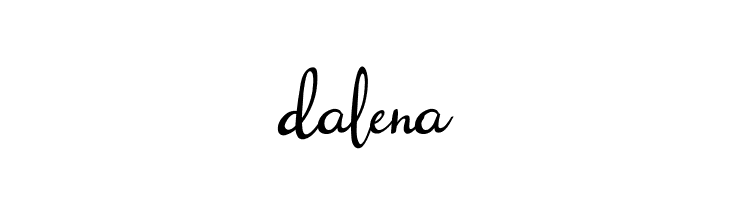
A bold, glitch-inspired font with a dynamic, distorted appearance.
A bold, flowing script font with a lively, tropical vibe.
A bold, hand-drawn font with a dynamic, graffiti-inspired style.
A bold, hand-drawn font with a playful and energetic style.
A playful and whimsical dingbat set capturing the essence of summer with hand-drawn elements.
A modern, geometric outline font inspired by neon lights, perfect for bold headlines and logos.
A dynamic, brush-style font with expressive strokes and artistic flair.
A playful, bold font with irregular strokes and a lively style.
A playful, elegant cursive font with a dynamic and handwritten style.
A bold, expressive handwritten font with fluid strokes and artistic flair.